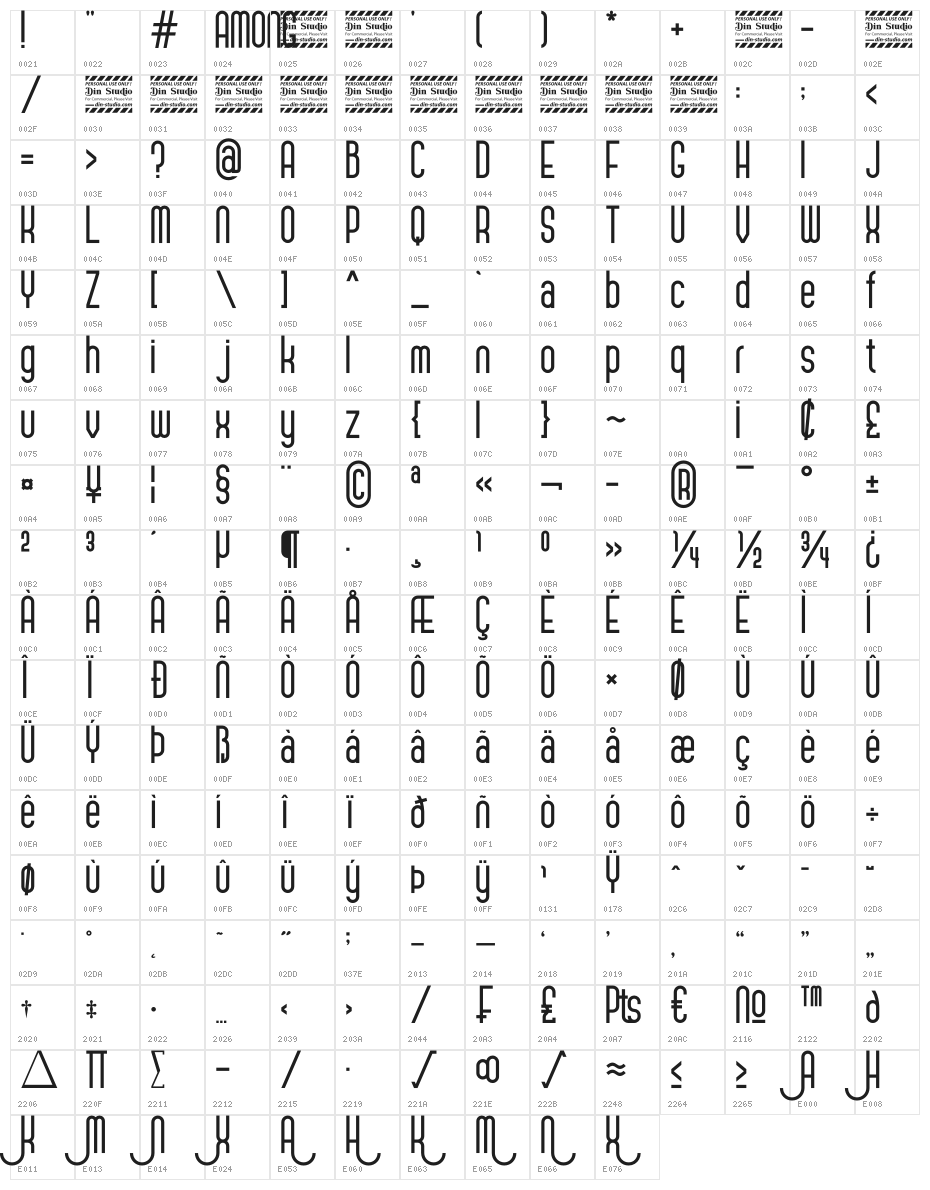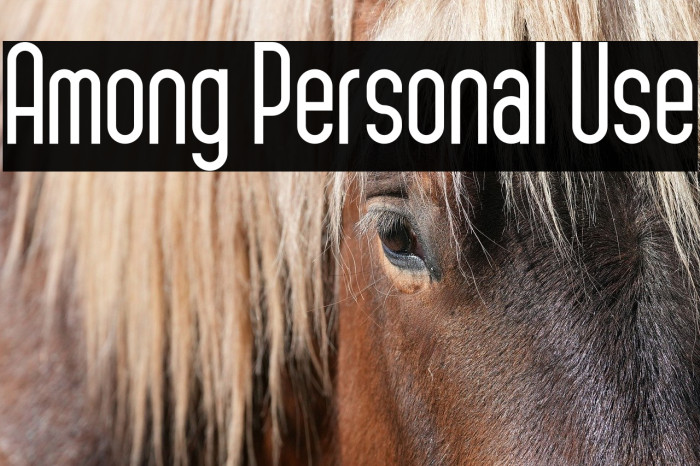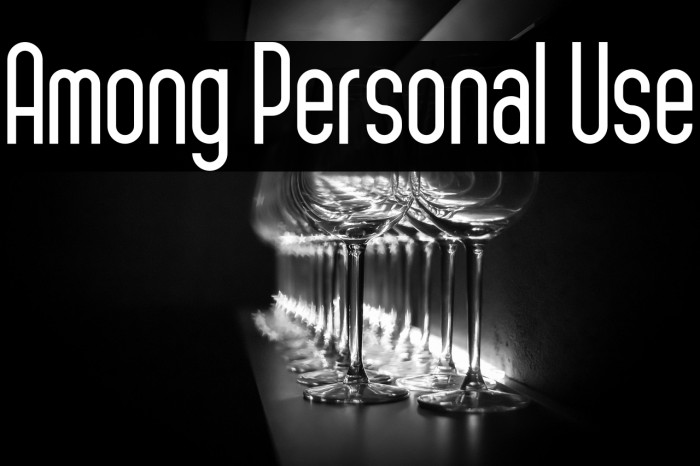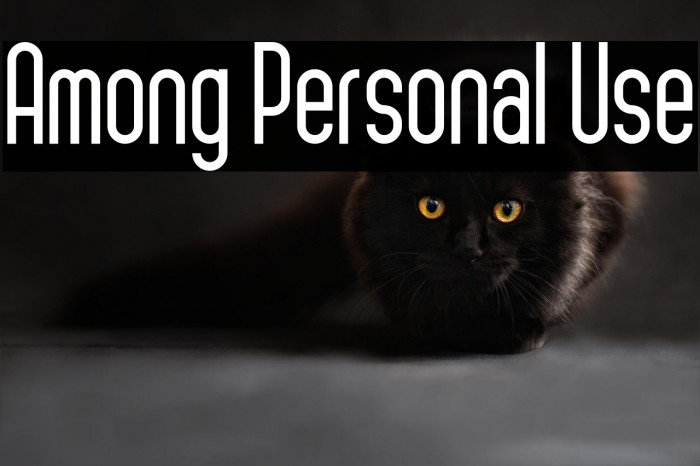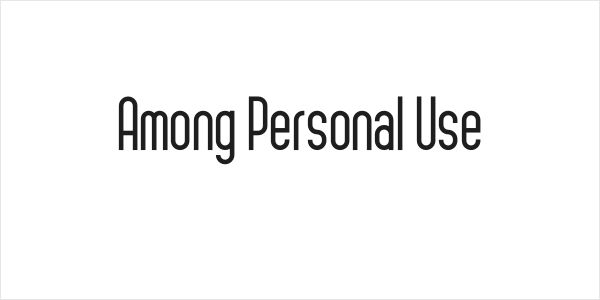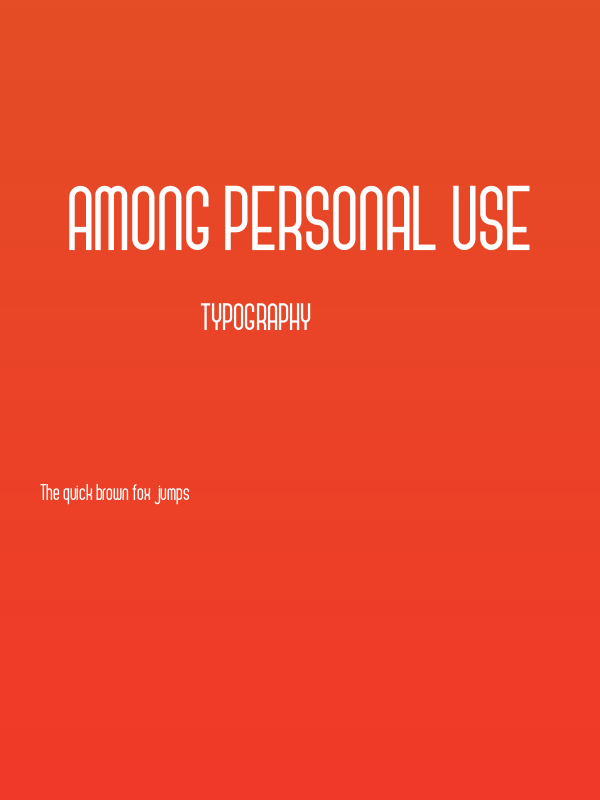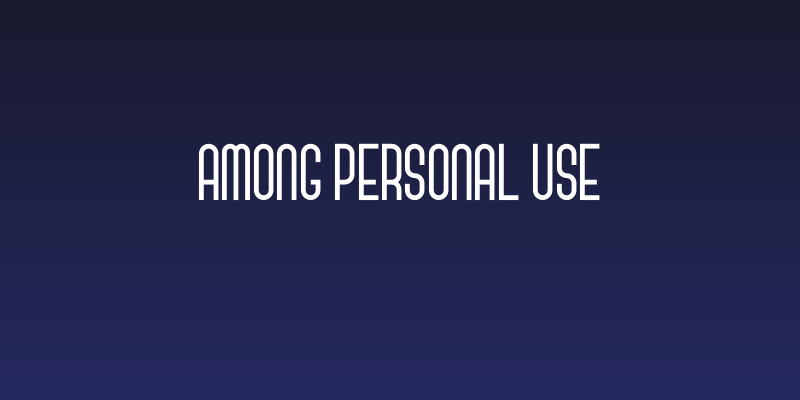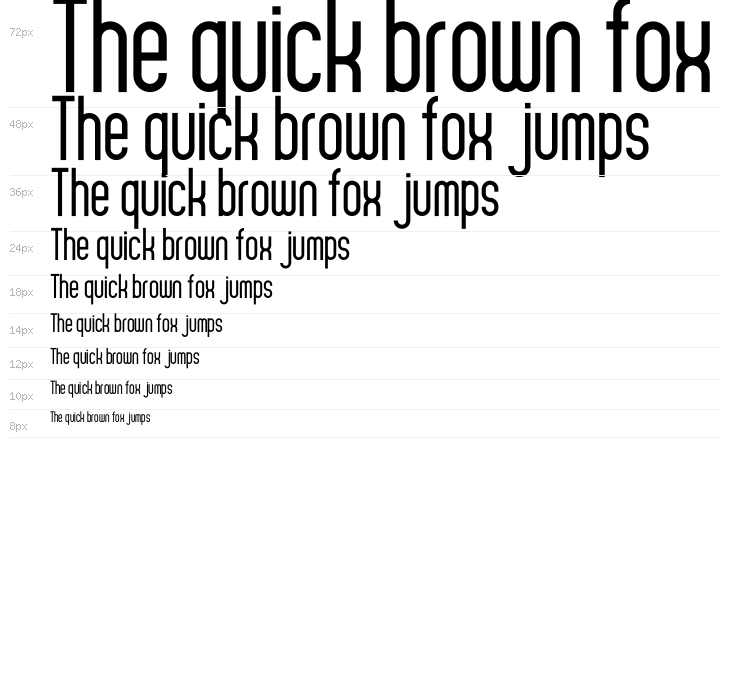
Among Personal Use Font
Among Personal Use Description
This font features a modern and sleek design with tall, narrow characters that convey a sense of elegance and sophistication. The uppercase letters are particularly elongated, giving the font a distinctive vertical emphasis. The lowercase letters maintain this narrow style, ensuring consistency across the typeface. The font includes numerals and a selection of special characters, all designed with the same attention to detail and stylistic coherence. The overall appearance is clean and minimalistic, making it suitable for contemporary design projects. The font's unique style makes it stand out, yet it remains highly legible, even at smaller sizes.